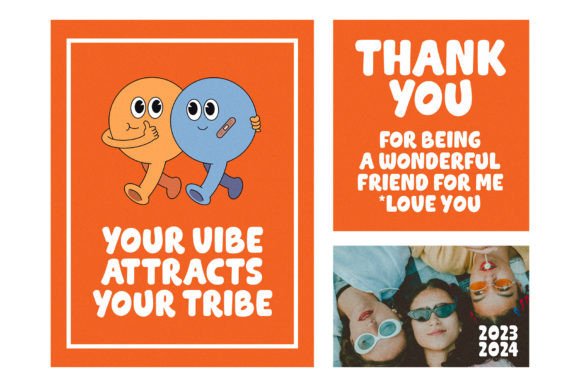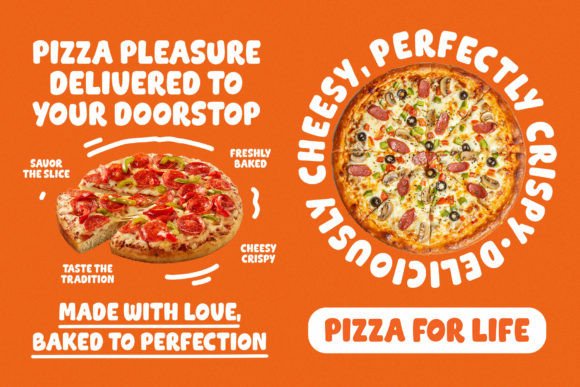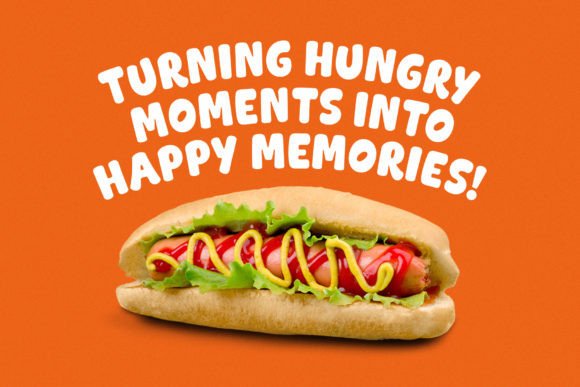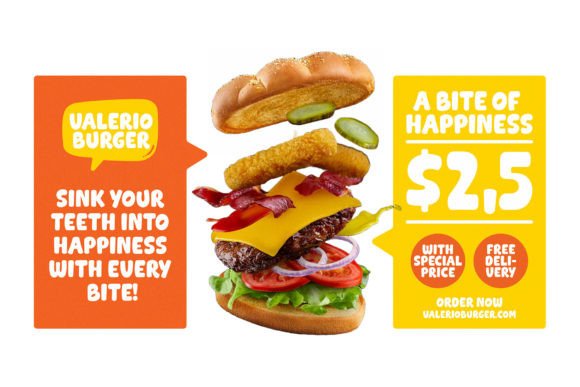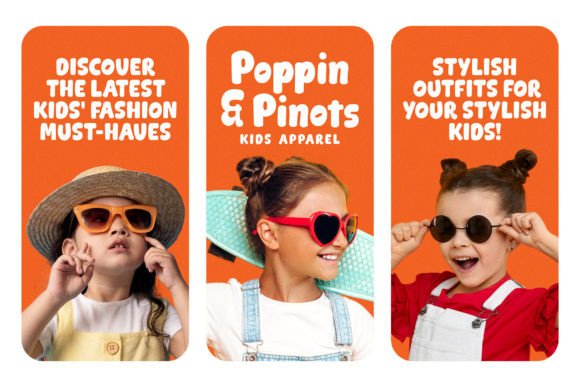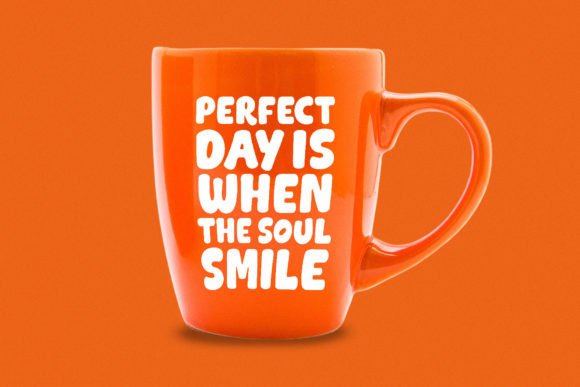
Eighty Miles Font: Make Your Message Stand Out with Bold and Whimsical Characters
In the world of typography, fonts play a crucial role in conveying messages and capturing the attention of audiences. With the numerous font options available, it can be challenging to find one that effectively balances boldness and readability. However, if you’re looking for a font that can help your message take center stage while showcasing a touch of whimsy, look no further than the Eighty Miles font.
Introducing Eighty Miles Font
The Eighty Miles font is a unique and eye-catching typeface that boasts thick and attention-grabbing characters. Its bold design ensures that your message is front and center, making it perfect for designers and crafters looking to create a lasting impression. What sets Eighty Miles apart from other fonts is its ability to balance boldness with readability. While it features wild and unconventional shapes, it never compromises on legibility, making it an excellent choice for a wide range of design projects.
Key Features of Eighty Miles Font
So, what makes Eighty Miles font an excellent addition to your typography arsenal? Here are some of its key features:
- Attention-grabbing characters: The Eighty Miles font features thick and bold characters that demand attention. Its unique design ensures that your message stands out from the crowd, making it perfect for headlines, titles, and other display text.
- Wild and whimsical shapes: Eighty Miles font boasts unconventional shapes that add a touch of playfulness to your design. Its bold and adventurous aesthetic is sure to capture the attention of your audience and leave a lasting impression.
- Readability: Despite its bold design, Eighty Miles font prioritizes readability. Each character is carefully crafted to ensure that your audience can enjoy the whimsy without missing a beat. This makes it an excellent choice for body text, captions, and other written content.
Eighty Miles font is an excellent choice for designers and crafters looking to add a touch of personality to their work. Whether you’re creating a logo, branding materials, or marketing collateral, this font is sure to make your message stand out. Its bold and attention-grabbing design makes it perfect for:
- Logos and branding: Eighty Miles font is an excellent choice for creating memorable logos and branding materials. Its unique design ensures that your brand stands out from the competition and leaves a lasting impression on your audience.
- Marketing collateral: Whether you’re creating flyers, brochures, or social media graphics, Eighty Miles font is sure to capture the attention of your audience. Its bold design ensures that your message is front and center, making it perfect for promotional materials.
- Packaging design: If you’re looking to create eye-catching packaging design, Eighty Miles font is an excellent choice. Its bold and attention-grabbing design ensures that your product stands out on store shelves and leaves a lasting impression on customers.
Tips for Using Eighty Miles Font
To get the most out of Eighty Miles font, here are some tips to keep in mind:
- Use it sparingly: While Eighty Miles font is attention-grabbing, it’s essential to use it sparingly to avoid overwhelming your audience. Use it for headlines, titles, and other display text to create visual interest and emphasize key points.
- Pair it with complementary fonts: To create visual interest and add depth to your design, pair Eighty Miles font with complementary fonts. This will help create a clear visual hierarchy and ensure that your message is easy to read.
- Experiment with colors and textures: Eighty Miles font is versatile and can be used with a range of colors and textures. Experiment with different combinations to find the one that works best for your design.
| Author | Fourlines.design |
In conclusion, Eighty Miles font is an excellent choice for designers and crafters looking to add a touch of personality to their work. Its bold and attention-grabbing design ensures that your message takes center stage, while its wild and whimsical shapes add a touch of playfulness to your design. With its prioritization of readability, Eighty Miles font is perfect for a wide range of design projects, from logos and branding materials to marketing collateral and packaging design. So why not give Eighty Miles font a try and see how it can elevate your design?